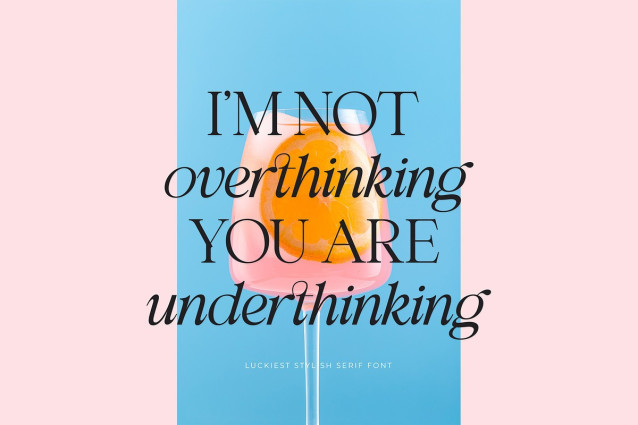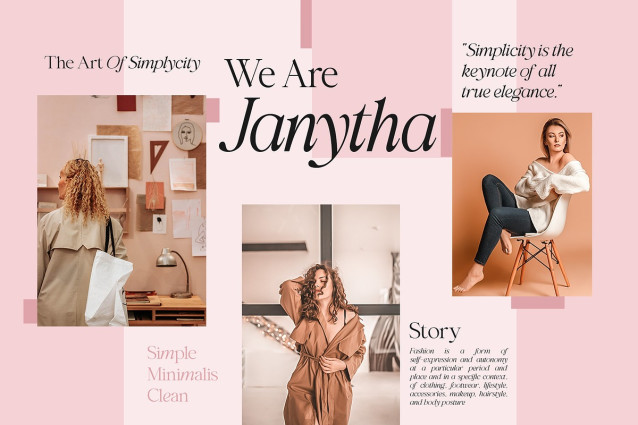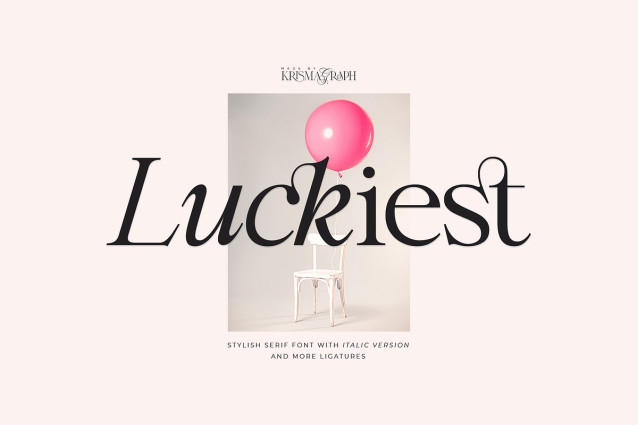
Luckiest Font
Luckiest Font is a Stylish Ligature Serif Font. Its soft curves mixed with high-contrast glyphs, give it a feminine and masculine quality. Come in two versions, namely Regular & Italic. It comes with beauty ligatures. Great in layout design for quotes or body copy, best used as a display for headings, logos, branding, magazines, product packaging, and invitations.